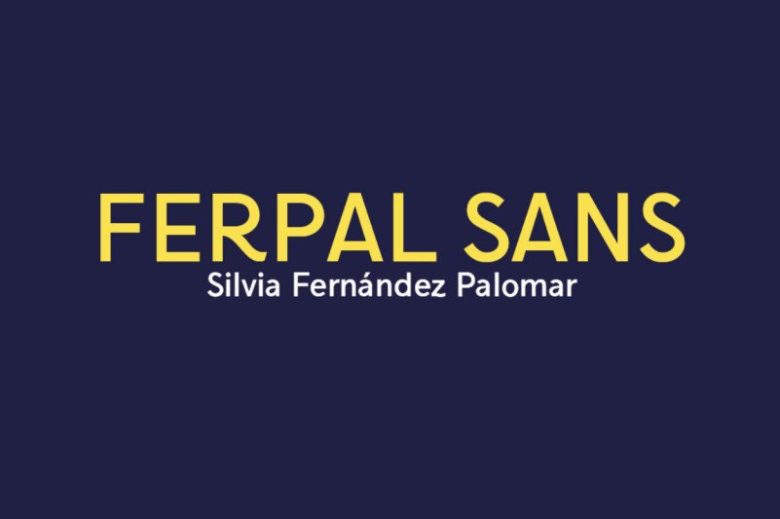
Ferpal Sans Font
Introducing a versatile contemporary font family, which is Ferpal Sans Font. Ferpal Sans was designed by Silvia Fernández Palomar. Ferpal is a typography designed for Madrid.
From the lack of identity and homogeneity in the typographies of the city, I imagined how a typeface would unify this problem.
Designed especially for signage, taking as reference the ceramic signs of the streets of Madrid and the patterns of design of typography for large applications, it is perfectly suited for graphic design applications ranging from editorial, corporate, web, interaction to product design